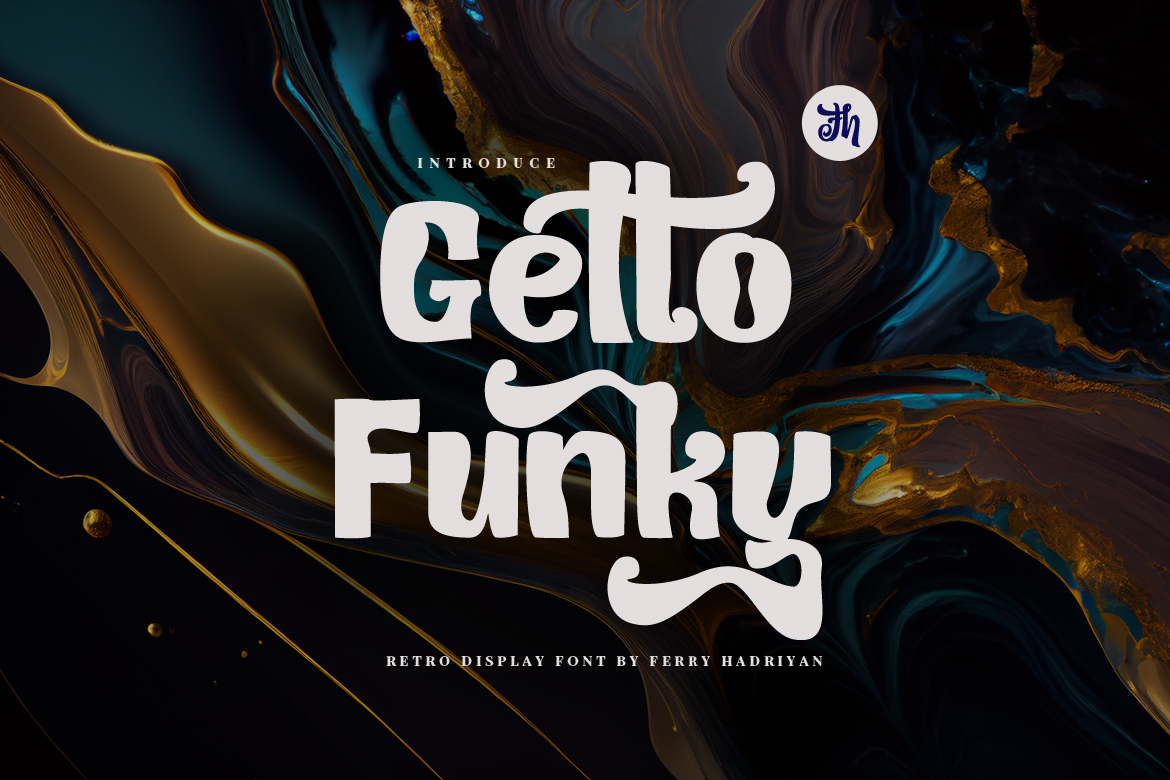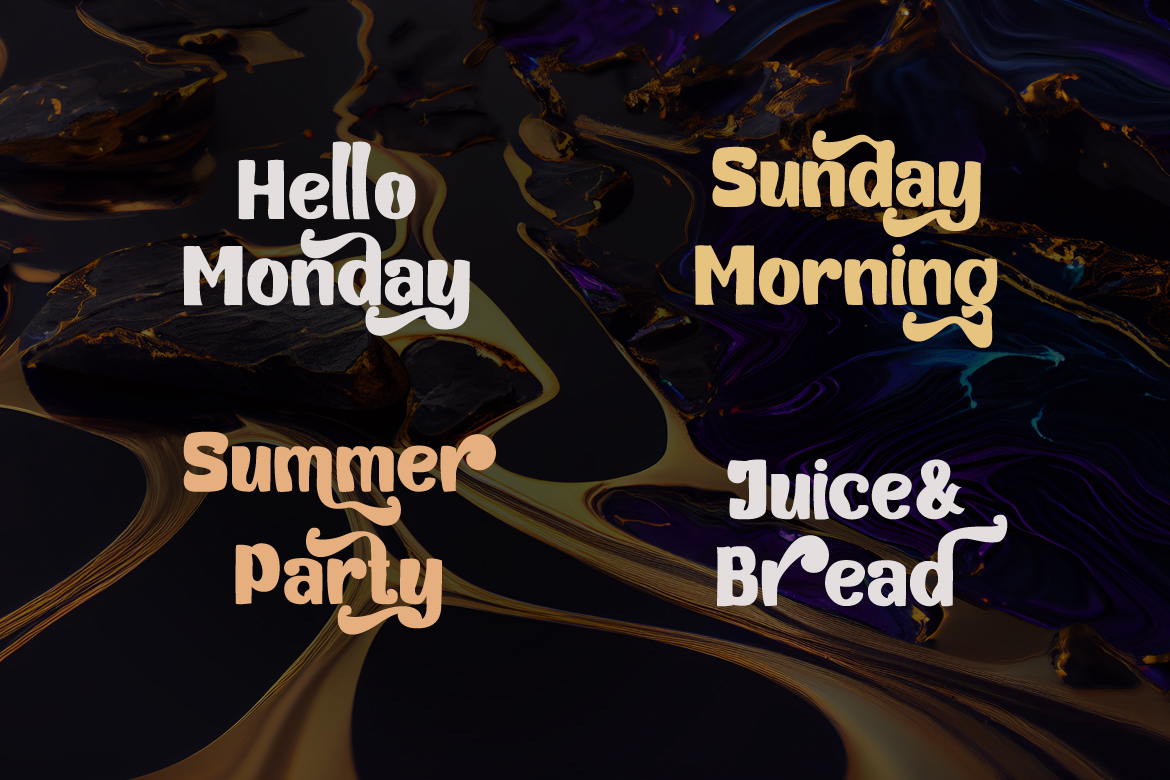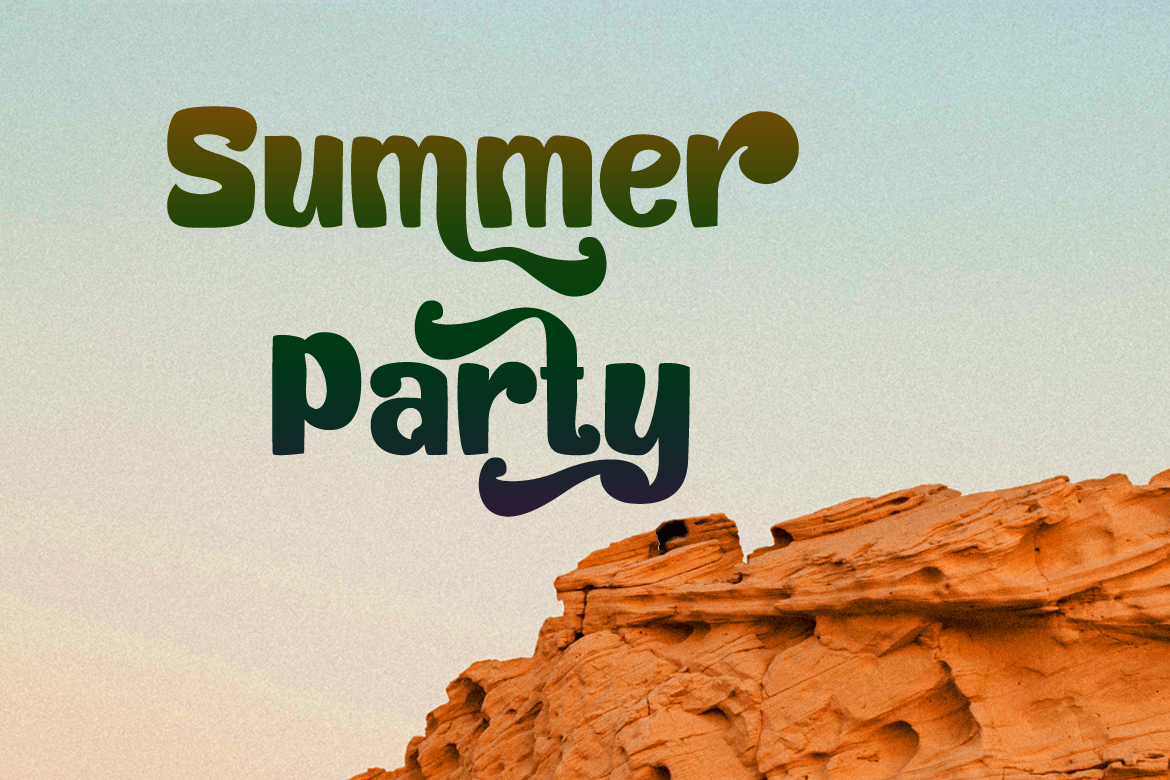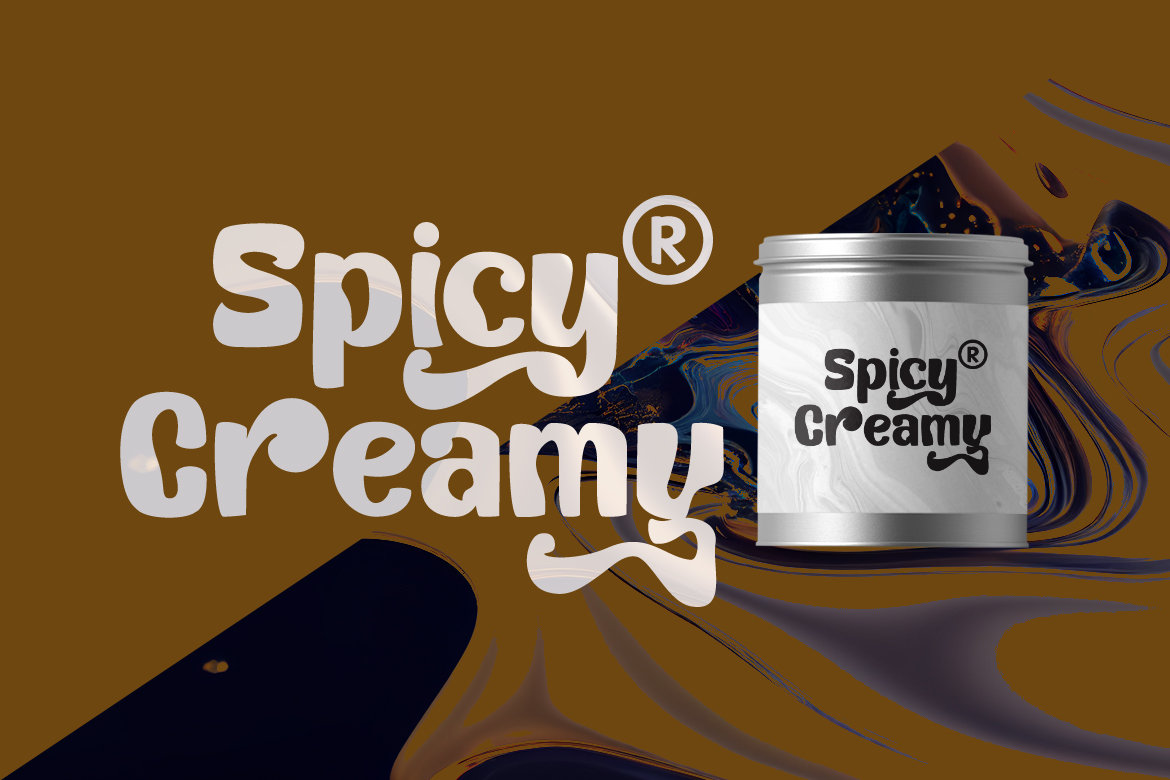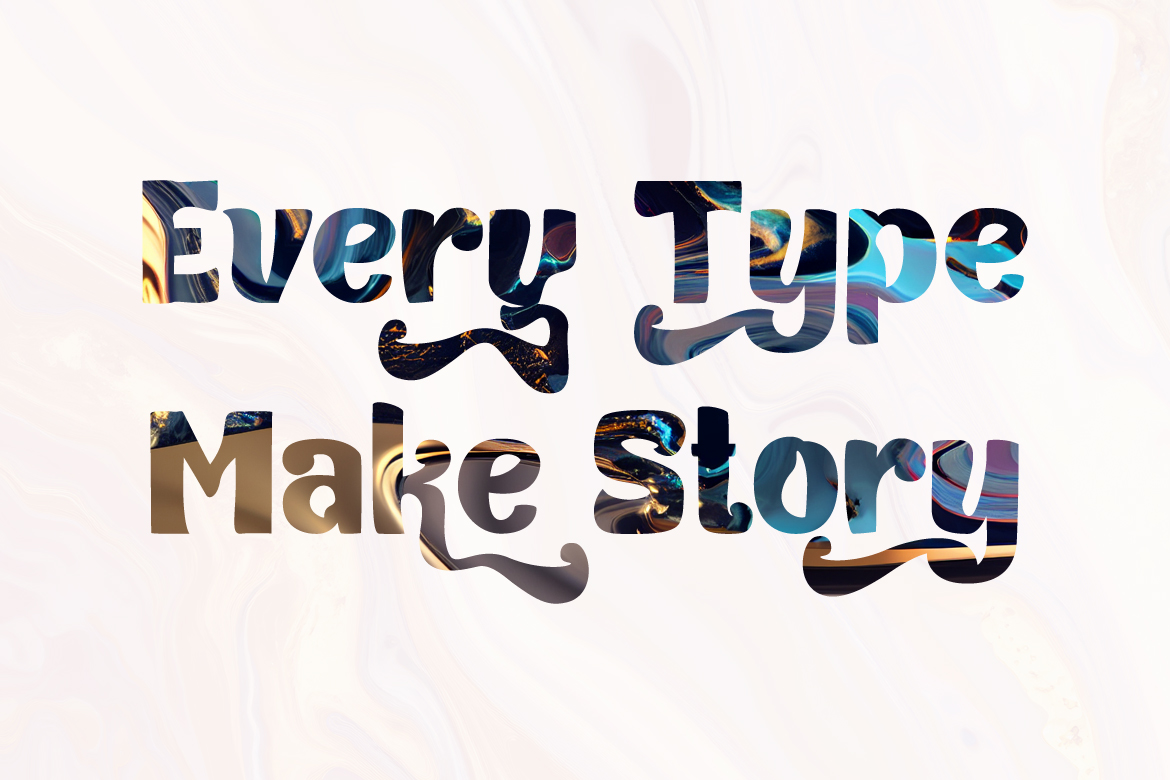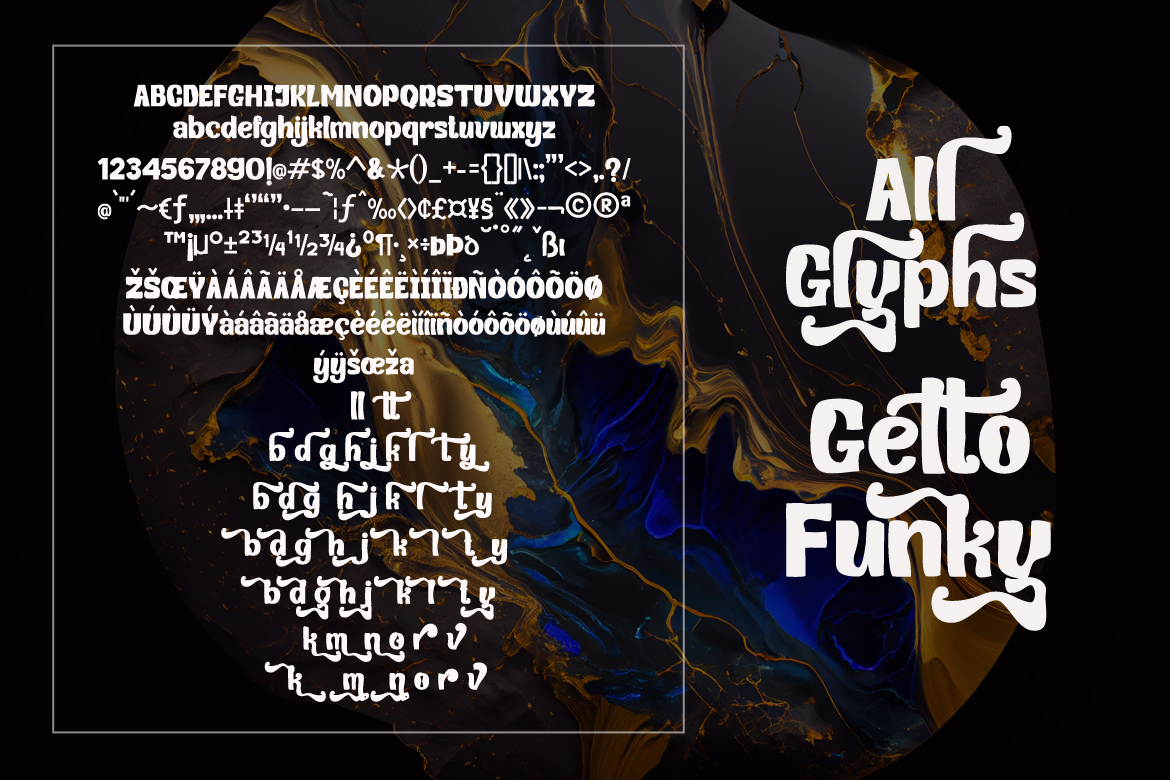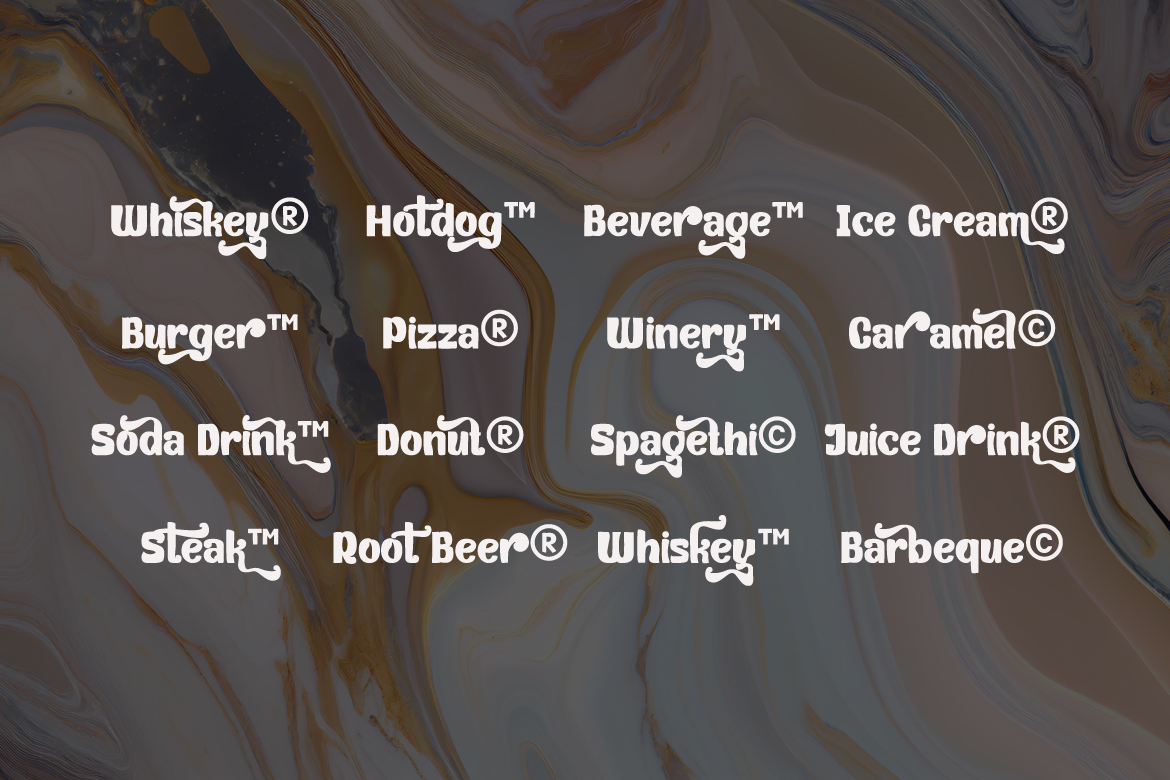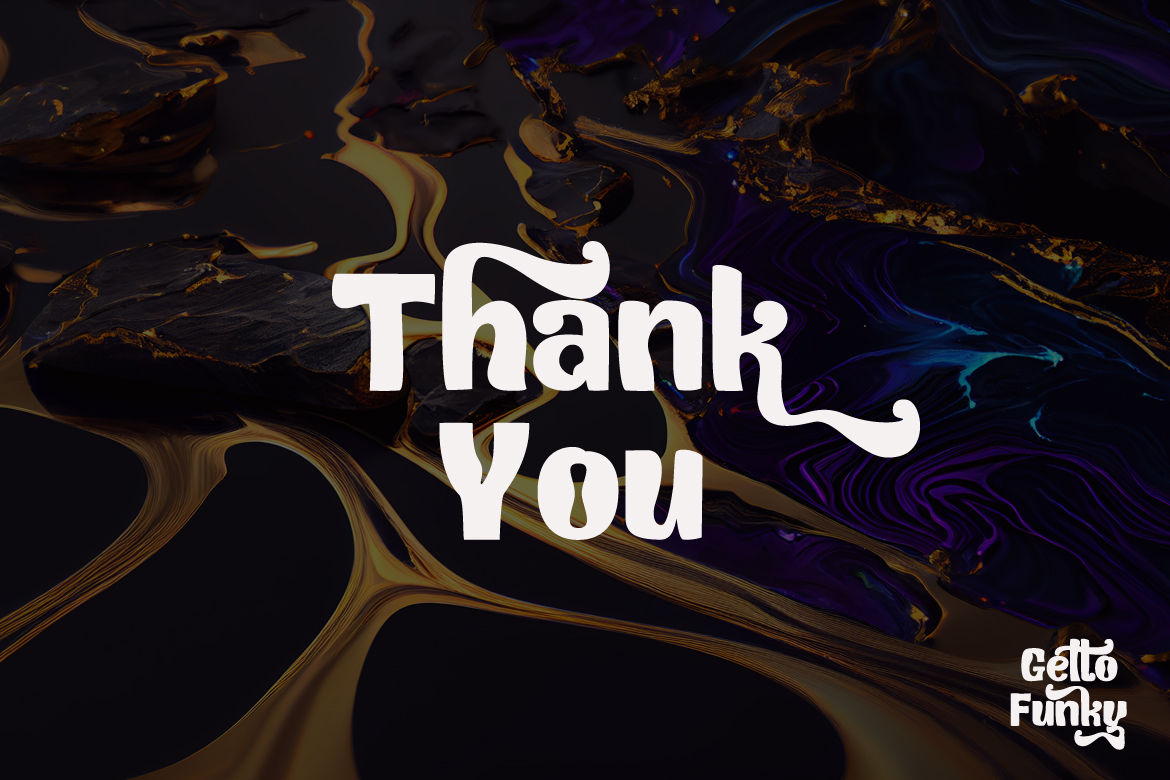
Getto Funky – Display Font
Getto Funky is a display font with a fun retro style, with swashes on the OpenType feature included in the font. Suitable for design, element design, events, logo, awesome work, etc…
– All Standard Characters, Symbols, Multilanguage, ligatures, Stylistic Sets, and Swashes.